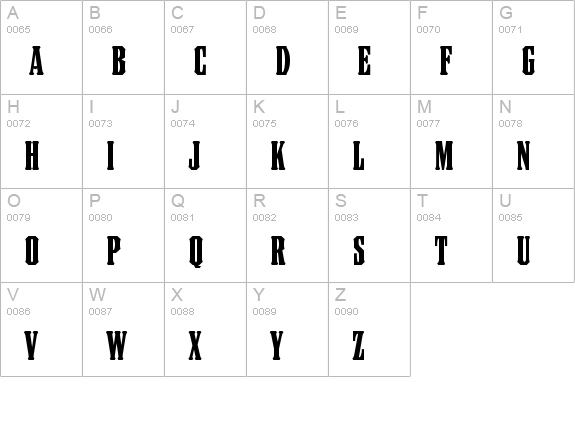
Council font is a versatile and elegant typeface that exudes sophistication and professionalism. With its clean lines and classic design, Council font is perfect for a wide range of projects, from formal documents to modern websites. This typeface strikes the perfect balance between traditional and contemporary styles, making it a timeless choice for any design project. What sets Council font apart is not only its timeless design but also the fact that it is available for free download at FontsMarket.com. This means that you can easily access this high-quality font without any cost, making it a valuable addition to your design toolkit. Whether you are a graphic designer, web developer, or just someone looking to enhance their written content, Council font offers a polished and sophisticated look that will elevate your work to the next level. Download Council font today and add a touch of elegance to your projects.